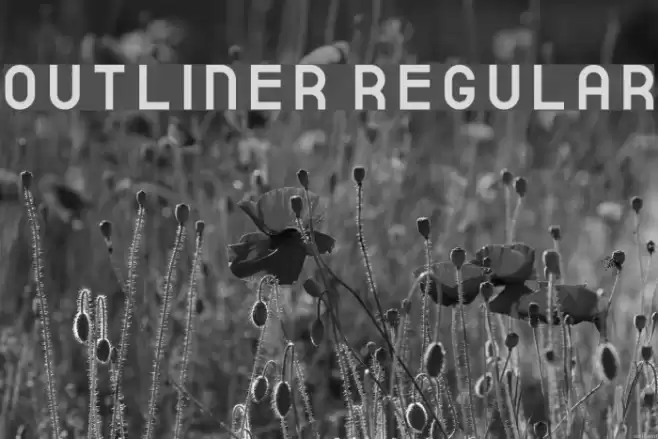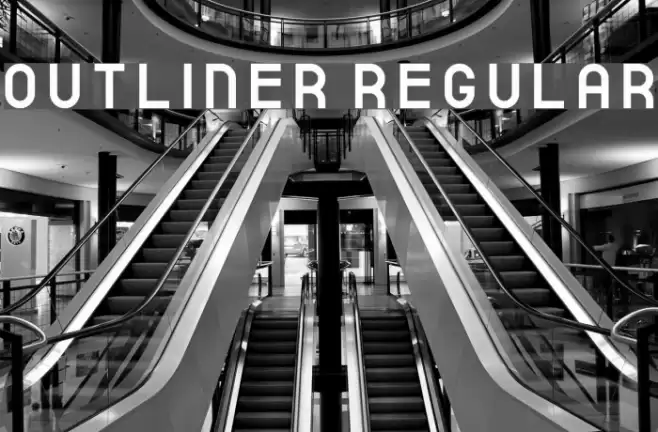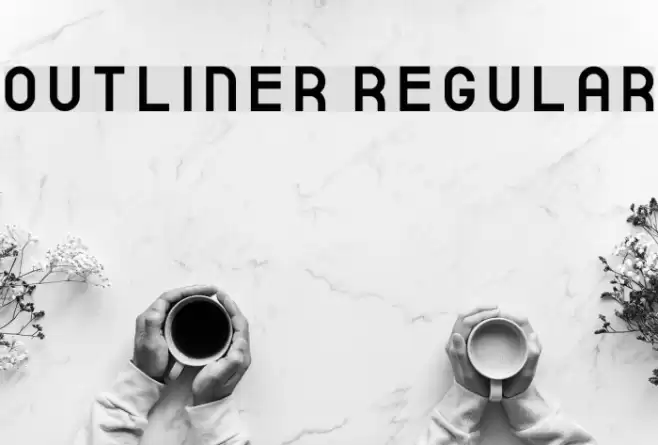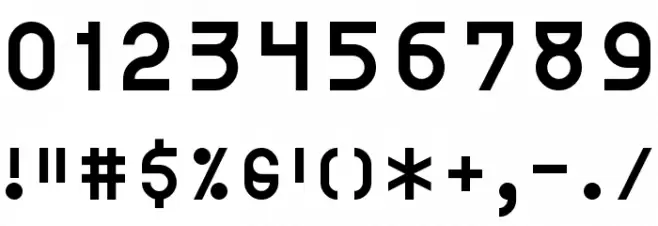
outliner Regular Font
outliner Regular Description
This font features a bold, geometric design with a modern and clean aesthetic. The characters are constructed with consistent stroke widths, giving it a uniform appearance. The uppercase and lowercase letters maintain a similar height, contributing to a cohesive look. The numerals are clear and legible, matching the style of the alphabet. Special characters are designed with the same geometric precision, ensuring they integrate seamlessly with the rest of the font. The overall style is minimalistic, making it suitable for contemporary design projects.
A bold, geometric font with a modern and clean aesthetic from Uncategorized fonts.
- Proposed Projects: Ideal for branding, headlines, posters, and digital interfaces where a modern and bold statement is needed.